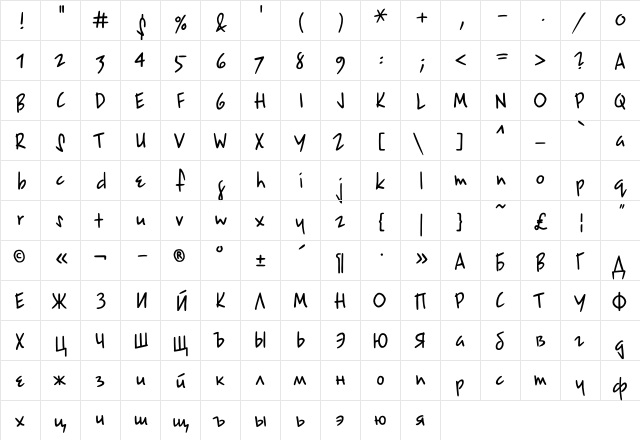
EpsilonC Regular
Design Context for EpsilonC Typeface
EpsilonC is a composed and adaptable typeface that performs quietly and consistently across a wide range of design contexts.